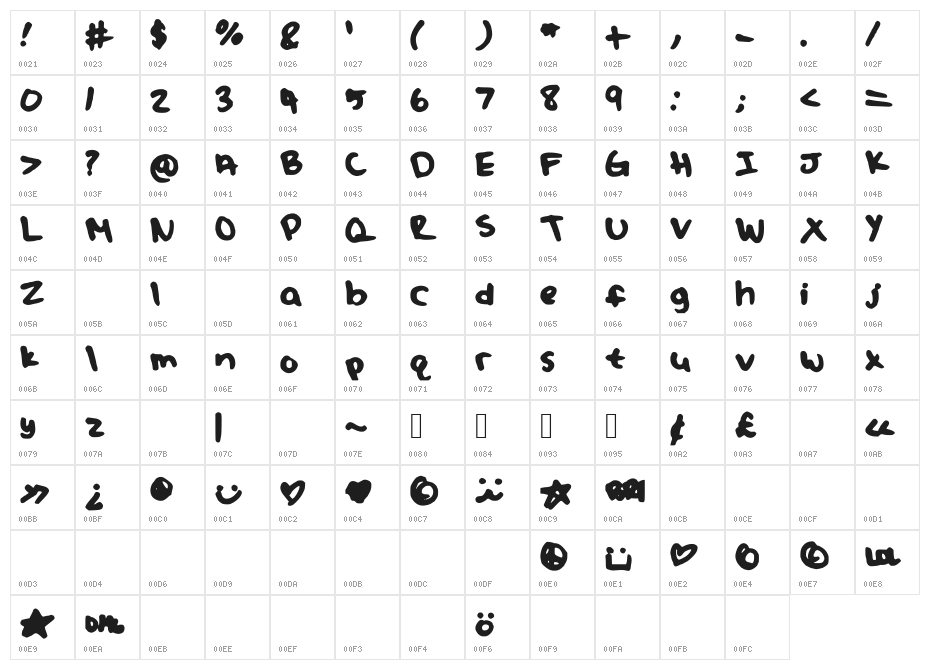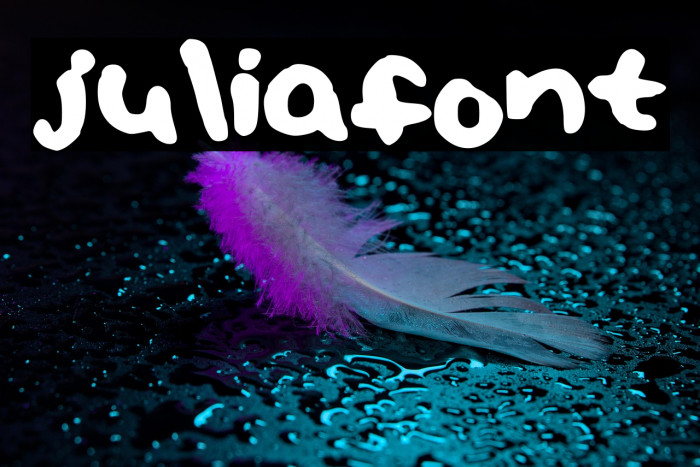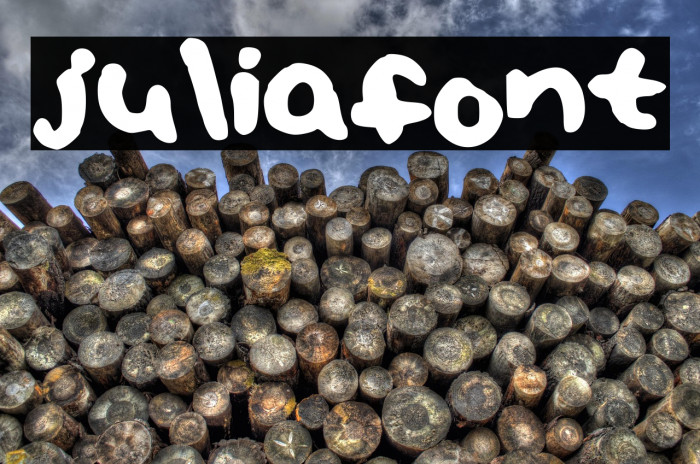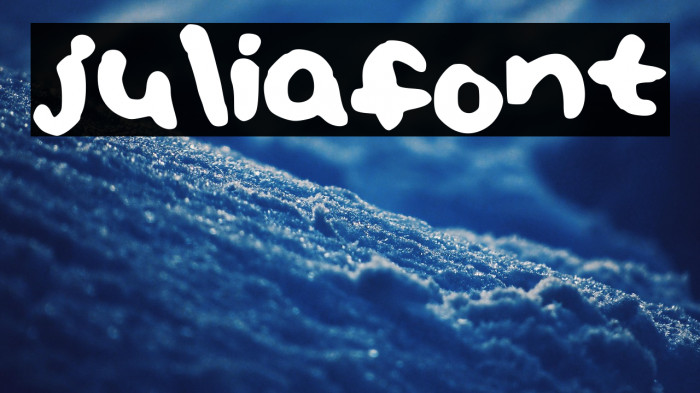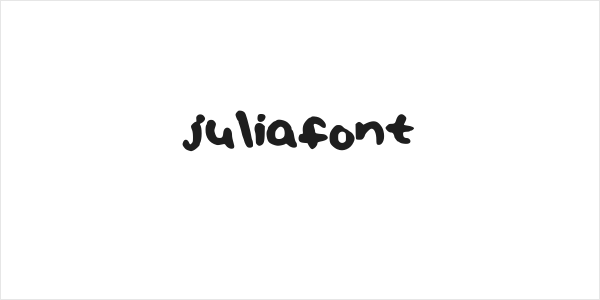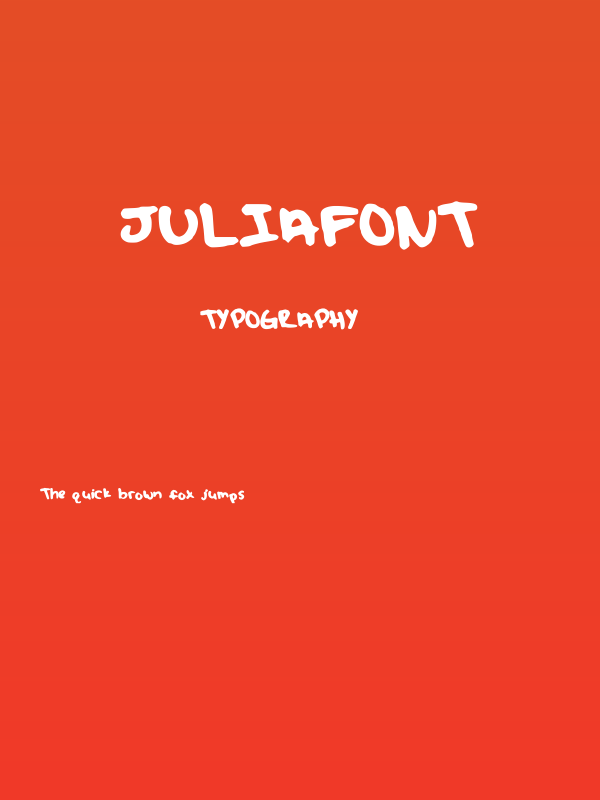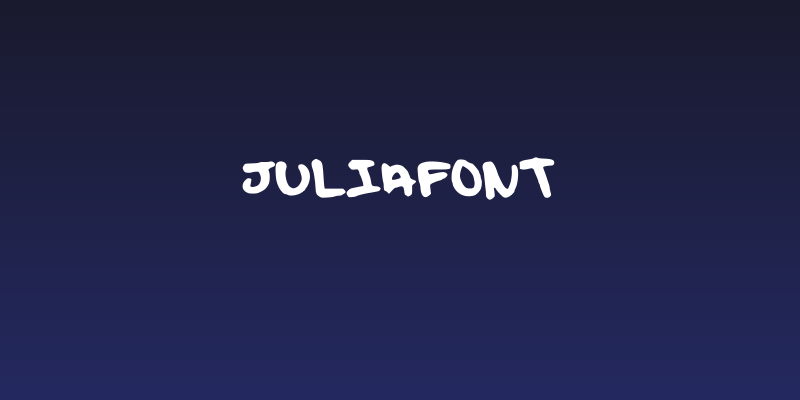
juliafont Font
juliafont Description
A bold, playful handwritten font with irregular strokes and a casual appearance.
| Overall Style | Playful, Casual |
| Use Case | Headlines, Informal text, Creative projects |
| Proposed Projects | Children's books, casual invitations, playful branding. |